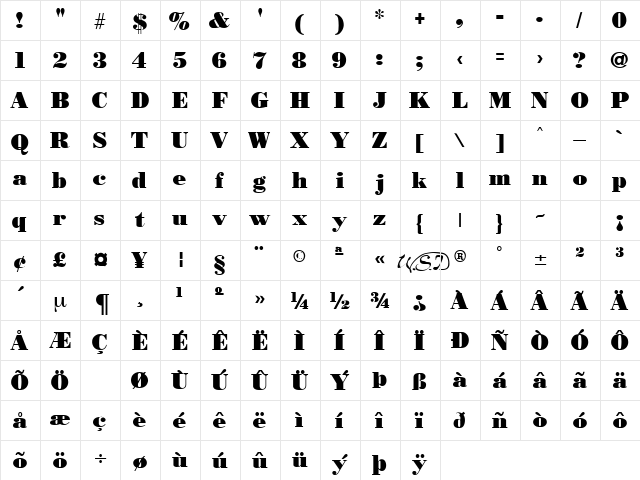
Boston Black Regular
Design Context for Boston Black Typeface
Boston Black takes a measured approach to typography — its balanced proportions and neutral character make it a reliable workhorse for both digital and print work.
Pro Tip: Use Boston Black in both headline and body roles to test its range before committing to a single application.